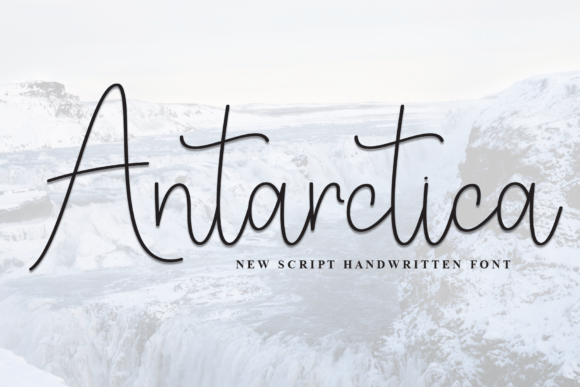
The Enchanting Antarctica Font: A Designer’s Delight
I’ll never forget the time I was working on a whimsical wedding invitation project, and my client asked for a font that would make their special day feel like a fairytale. I scoured the internet, tried out countless fonts, but nothing seemed quite right. That was until I stumbled upon the Antarctica Font. Its captivating charm and breezy character instantly won me over, and I knew I had found the perfect fit. In this article, I’ll share my experience with this delightful handwritten display font and explore its many uses, features, and applications.
• ✅ Unique and quirky character that adds a touch of whimsy to any design
• ✅ Highly legible, even at smaller sizes
• ✅ Extensive range of OpenType features, including glyphs and stylistic alternates
• ✅ Perfect for a variety of design projects, from wedding invites to greeting cards
• ⚠️ May not be suitable for very formal or traditional designs
• ⚠️ Some characters may require manual kerning for optimal results
The Story Behind Antarctica Font
The Antarctica Font was designed by a talented typographer who wanted to create a font that would evoke the sense of wonder and enchantment that comes with exploring the unknown. Inspired by the rugged, icy landscapes of Antarctica, the font’s creator aimed to capture the essence of adventure and curiosity in a unique and captivating way.
Q: What is the Antarctica Font best suited for?
A: The Antarctica Font is perfect for designs that require a touch of whimsy and playfulness, such as wedding invitations, greeting cards, and other creative projects.
Q: Is the Antarctica Font easy to read?
A: Yes, the Antarctica Font is highly legible, even at smaller sizes, making it suitable for a wide range of design applications.